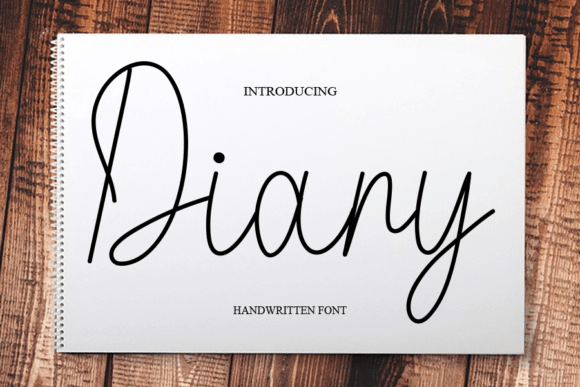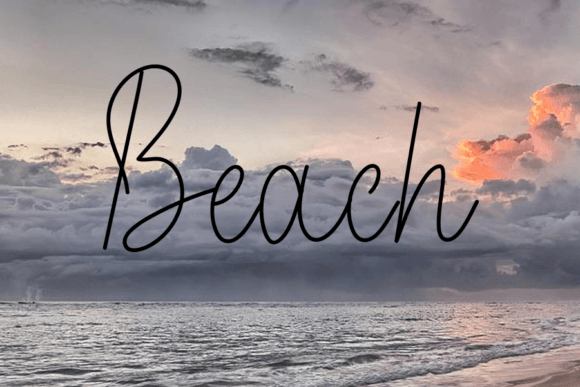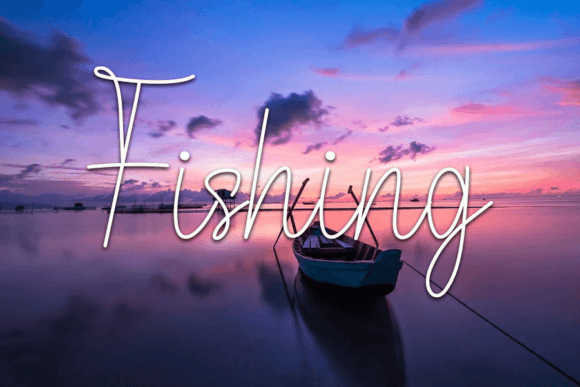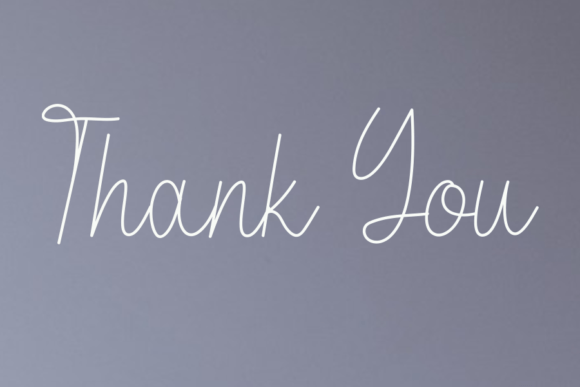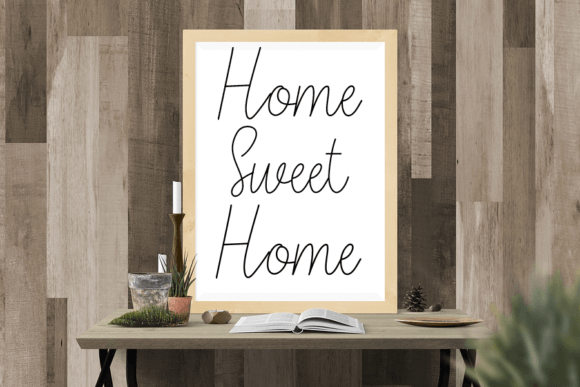
Diary Font
About Diary Font
“Diary” is not just a font; it’s a relaxed handwritten typeface that combines a modern sensibility with a whimsical style. This font is designed to immerse your designs into a fun and cool world, bringing a playful and lighthearted vibe to your creative projects.
The relaxed and handwritten qualities of “Diary” make it versatile for various design applications. Whether you’re working on invitations, social media posts, or any other creative endeavor, this font adds a touch of contemporary charm.
Imagine “Diary” gracing your designs, creating a visual experience that is both relaxed and whimsical. Its modern yet playful style enhances the overall aesthetics of your projects, making them stand out with a cool and fun appeal.
For branding purposes, “Diary” becomes a key element in creating a laid-back and approachable visual identity. Its whimsical style contributes to a friendly and engaging brand representation.
In social media posts and other online content, “Diary” serves as a font that brings a fun and cool factor. Its modern design makes it suitable for expressing a contemporary and youthful vibe.
Whether you’re working on print materials, branding, or digital designs, “Diary” is a design companion that adds a relaxed and whimsical touch. Let “Diary” be the typeface that immerses your projects into a cool and fun world, making them memorable and enjoyable for your audience.